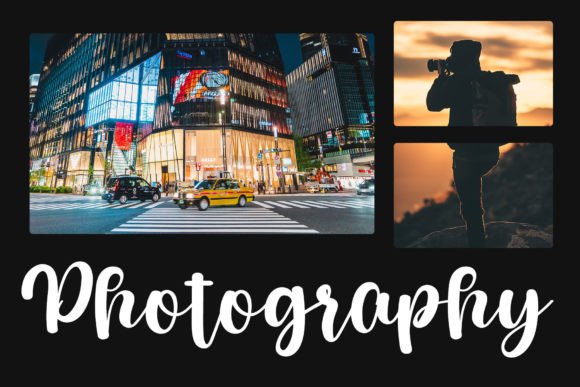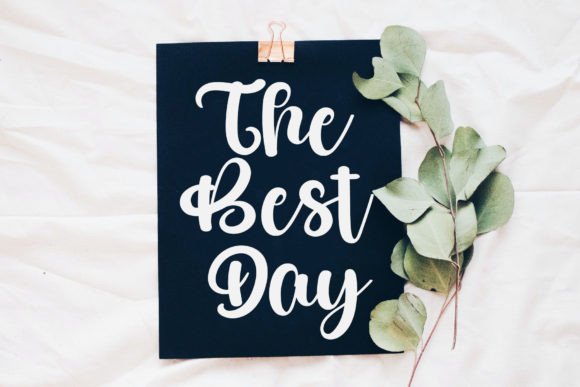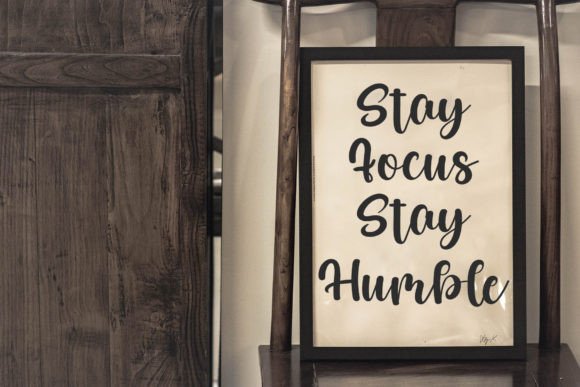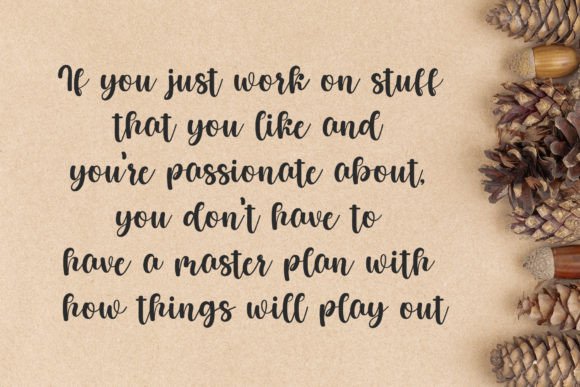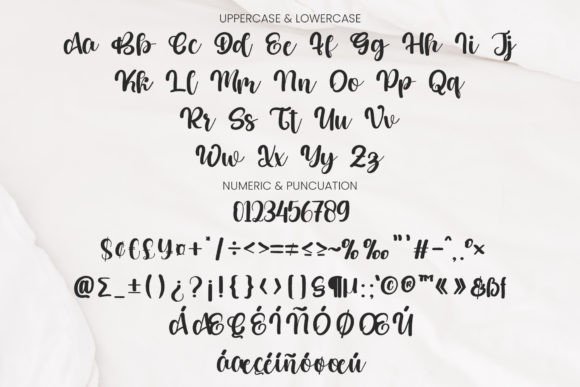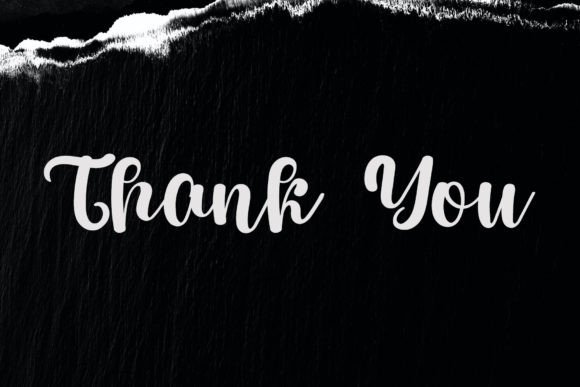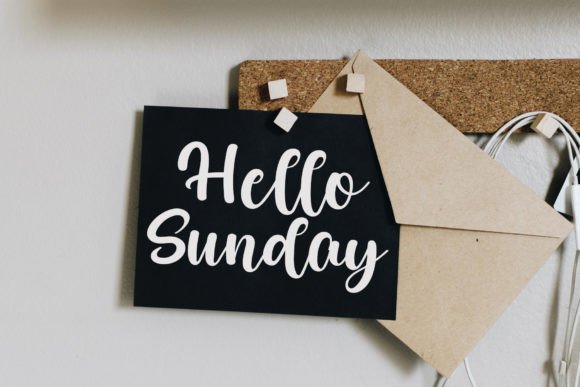
Black Font
About Black Font
Introducing Black, a delicate and elegant handwritten font that stands as a true masterpiece. With distinct and well-balanced letters, this font exudes a timeless charm that is sure to captivate. Fall in love with its incredible versatility, allowing you to use it to create spectacular designs across a variety of contexts.
The beauty of Black lies in its refined handwritten style, making each letter a work of art. The delicate strokes and elegant curves contribute to a visual aesthetic that is both sophisticated and approachable. This font is not merely a tool but an expression of creativity that can elevate your designs to new heights.
Its versatility knows no bounds, making it suitable for a wide range of design projects. Whether you’re working on branding, invitations, posters, packaging, or any other creative endeavor, Black adapts seamlessly to various contexts, adding a touch of grace to every application.
As you explore the well-balanced letters of Black, you’ll discover its ability to convey a sense of sophistication and timelessness. This makes it an ideal choice for those who seek a font that transcends trends and creates a lasting impact.
Let Black become your go-to font for projects that demand both delicacy and elegance. From digital designs to physical prints, this font is designed to make a statement. Its versatility ensures that it can be used for a range of purposes, providing a consistent and stylish aesthetic across different mediums.
In conclusion, Black is more than just a font; it’s a visual experience that allows you to create spectacular designs with ease. Its delicate and elegant handwriting style, combined with its well-balanced letters, makes it a valuable addition to any designer’s toolkit. Fall in love with the timeless beauty of Black and let it be the centerpiece of your next creative masterpiece.